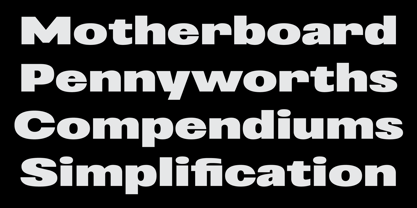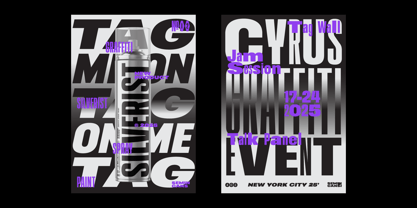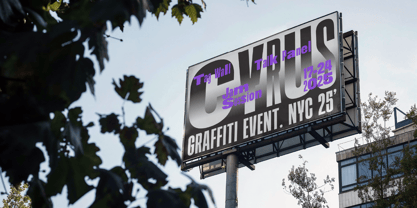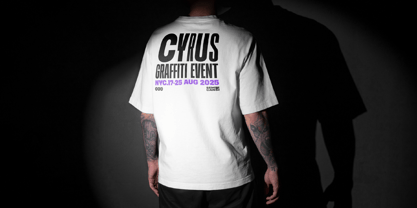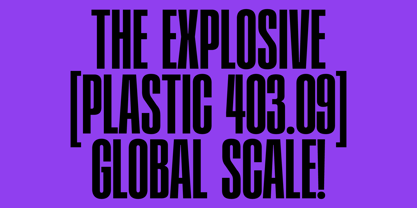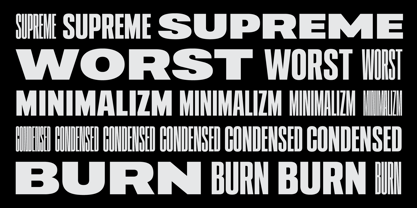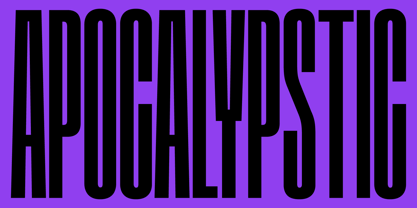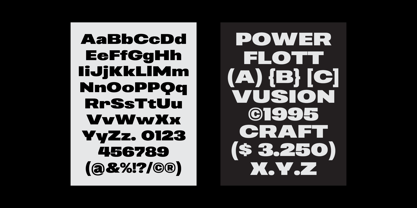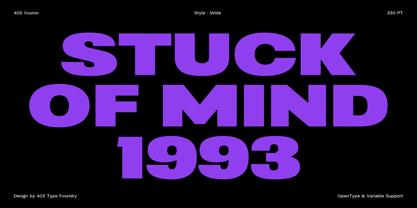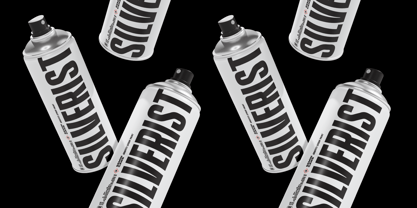
403 Vusion
Die Schriftfamilie 403 Vusion wurde von Umar Al Farouq, Jodi El Ghazi, Febri Riansah entworfen und von 403TF veröffentlicht. 403 Vusion enthält 24 Stile und Familienpaketoptionen. Mehr über diese Familie
Introducing 403 Vusion, the ultimate sans-serif typeface engineered to revolutionize your typographic toolkit and make an undeniable statement. With its unparalleled versatility and distinctive aesthetic, 403 Vusion empowers designers to craft compelling, high-impact visual narratives that captivate and communicate with immediate authority. This is more than just a font; it's a dynamic design system ready to elevate your projects from concept to iconic execution.
403 Vusion embodies a philosophy of contemporary adaptability, blending razor-sharp lines with an unyielding presence. Its geometric foundation provides inherent clarity and readability, while its extensive range of widths allows for extraordinary expressive potential, from tightly condensed to boldly expanded forms. Inspired by the raw energy and diverse demands of modern design, 403 Vusion exudes a confident, forward-thinking tone, equally at home in high-tech interfaces, streetwear branding, and commanding editorial layouts. Its character is one of precision, adaptability, and striking visual power, designed to deliver strong messages without compromising on legibility or style.
This typeface is an indispensable asset for a broad spectrum of creative professionals, from branding agencies seeking a unique and memorable identity to UI/UX teams crafting immersive digital experiences. It's perfectly suited for impactful headlines, striking event posters, sleek product packaging, sophisticated website interfaces, and memorable logo designs that demand attention. Whether you need to convey innovation, disruption, or minimalist elegance with a powerful edge, 403 Vusion provides the expansive typographic palette to achieve your most ambitious vision.
Key Features:
• 403 Vusion Family: A comprehensive sans-serif family for diverse applications.
• Variable Font Technology: Two axes for seamless, infinite interpolation between styles.
• 12 Widths: Ranging from XXX Squeezed to Wide, offering unparalleled stylistic control and expressive range.
• Regular & Slanted Styles: Enhance versatility and dynamism for every design need.
• 750+ Glyphs Per Style: An extensive character set ensuring comprehensive design flexibility.
• 100+ Language Support: Global reach for international projects and diverse audiences.
• Optimal for Print & Web: Engineered for crisp display and performance across all mediums.
Don't just design; make an impact. Explore the expansive potential of 403 Vusion today and transform your next project into a visual triumph.